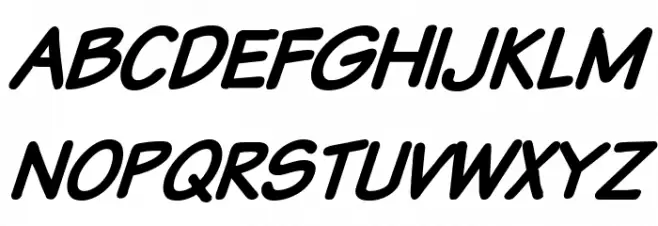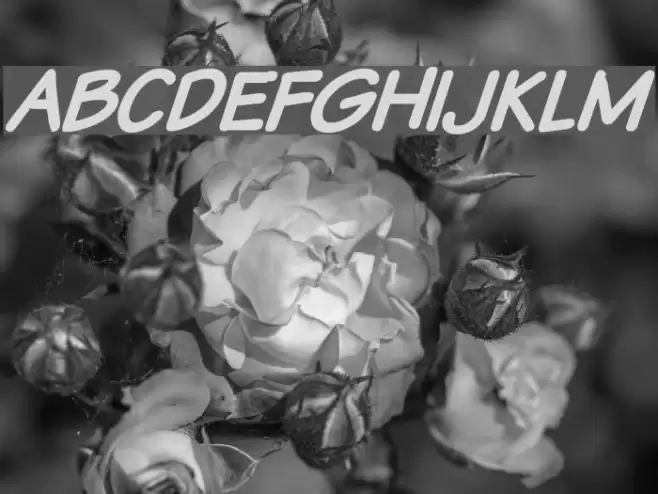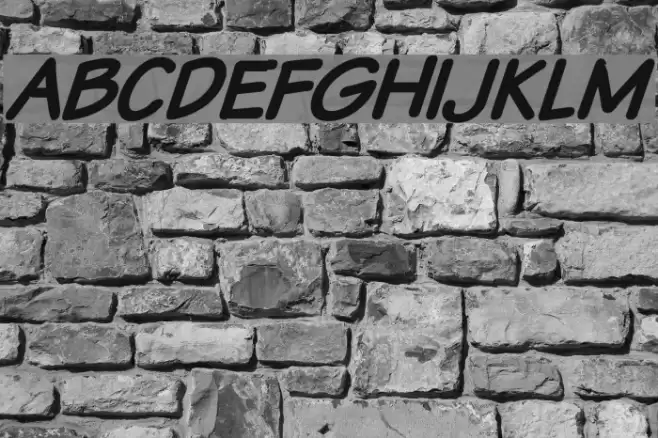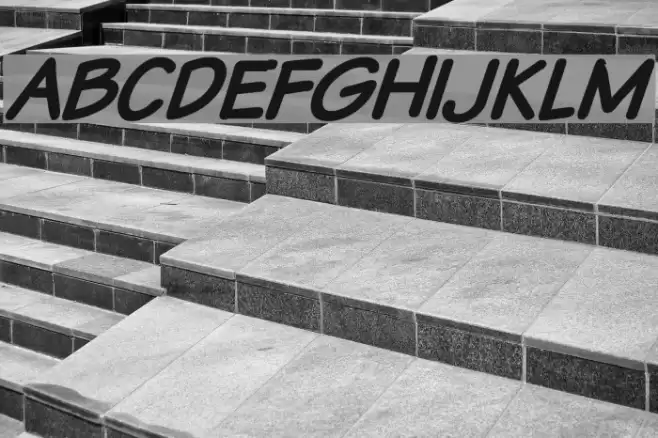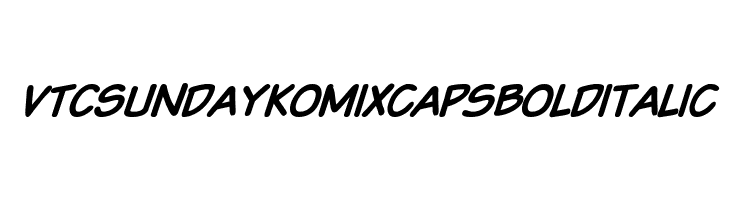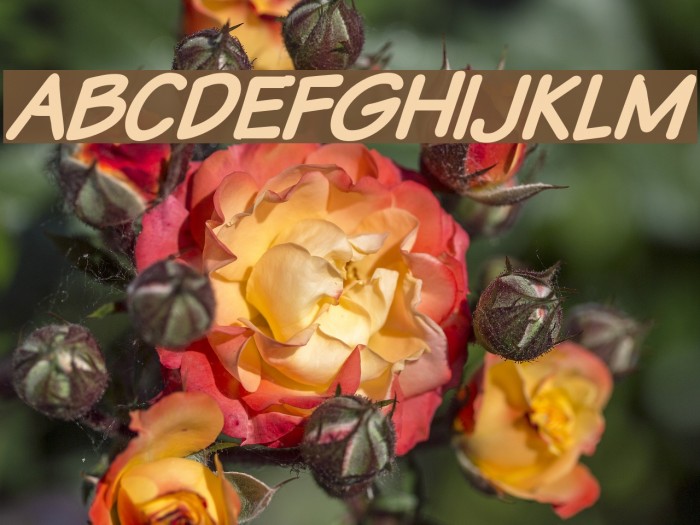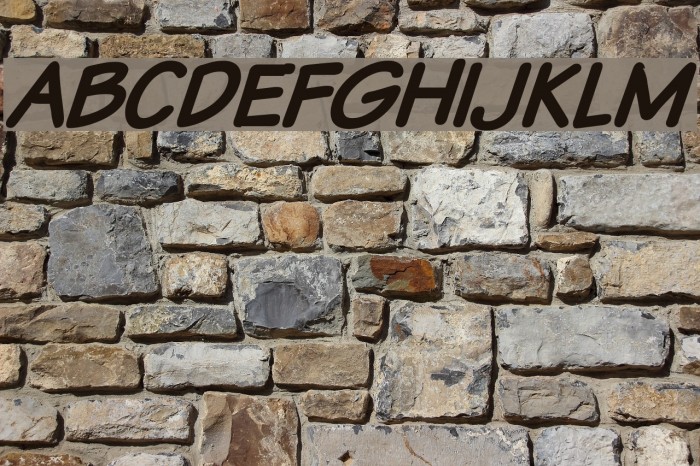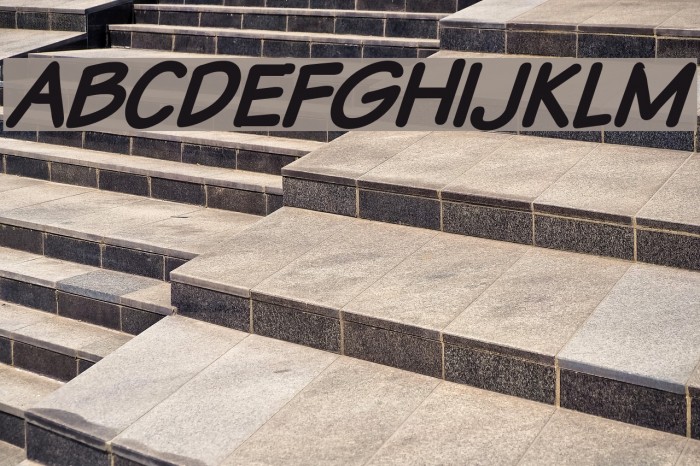
VTCSundaykomixcapsboldItalic
This font features a bold and dynamic style with a playful, comic-inspired aesthetic. The characters are slanted, giving an italicized appearance that adds movement and energy. The strokes are thick and consistent, providing a strong visual impact. The uppercase and lowercase letters maintain a cohesive look, with rounded edges and a slightly condensed form. Numbers and special characters are designed to match the lively and informal tone, making this font suitable for creative and casual applications.
A bold, italicized font with a playful, comic-inspired style.
- Proposed Projects: Ideal for comic books, playful branding, children's books, and creative posters.
- Width: Condensed
- Overall Style: Playful, Comic
- Use Case: Headlines, Logos, Posters